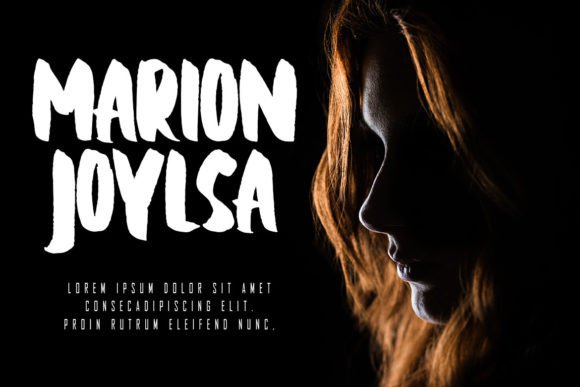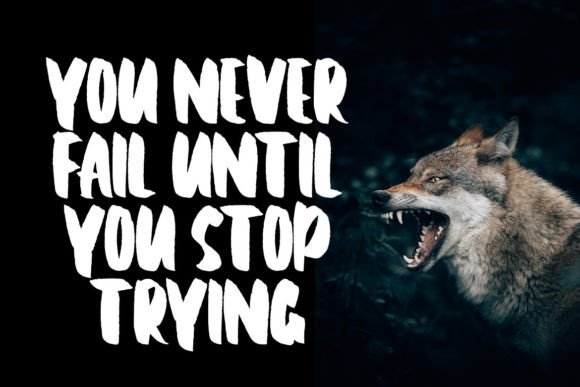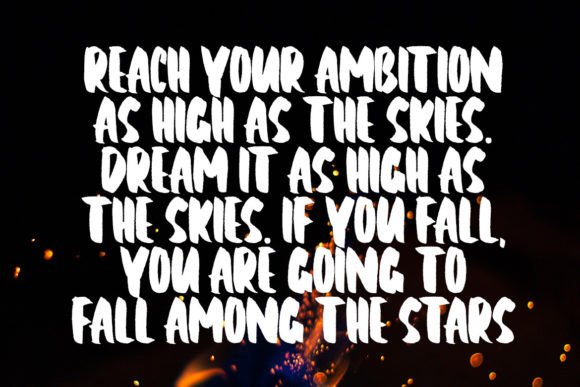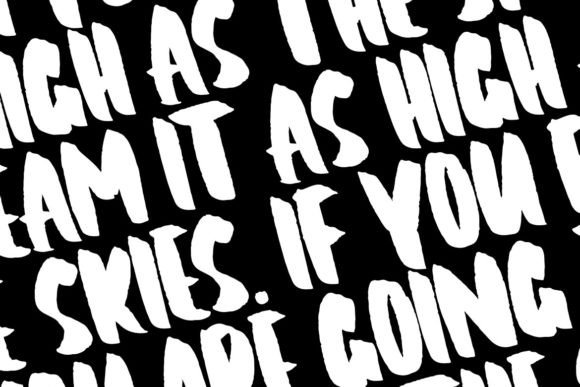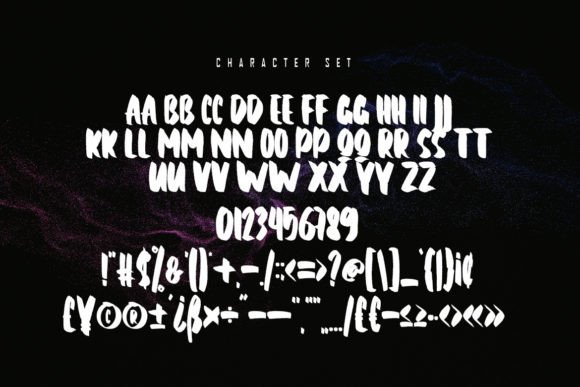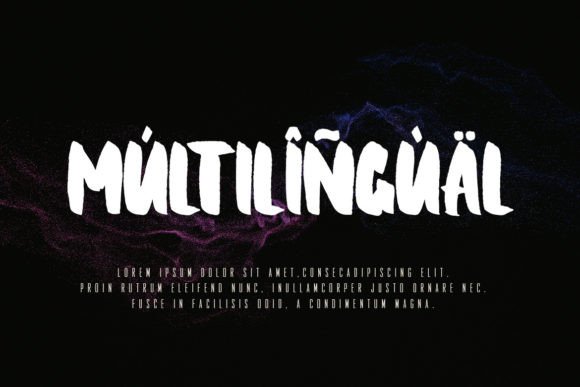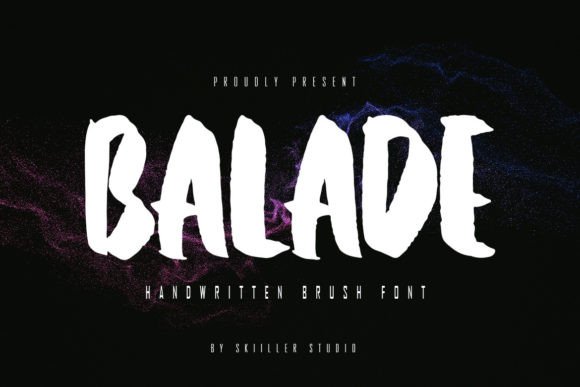
Introducing Balade Font: A Modern Brush Script for Creative Designs
Are you looking for a font that adds a personal touch to your designs? Look no further than Balade Font, a modern script font that captures the essence of natural brushes. Inspired by the fluid motion of a brush pen, Balade is a unique and realistic font that’s perfect for a variety of creative projects.
The Inspiration Behind Balade Font
Balade Font was created with the intention of mimicking the imperfections and uniqueness of hand-written typography. The font’s designer aimed to replicate the quick, fluid motion of writing with a brush pen, resulting in a dry and realistic look that’s both modern and elegant. This distinctive style sets Balade apart from other fonts, making it an excellent choice for designers seeking to add a personal touch to their work.
Characteristics of Balade Font
So, what makes Balade Font so special? Here are some of its key characteristics:
- Realistic and natural look: Balade’s brush script style gives it a genuine, hand-crafted feel that’s perfect for designs that require a personal touch.
- Modern and elegant: Despite its natural inspiration, Balade has a sleek and contemporary look that’s suitable for a wide range of applications.
- Dry and imperfect: The font’s subtle imperfections and dry texture add to its realistic and handmade feel.
Use Cases for Balade Font
Balade Font is an incredibly versatile font that can be used in various creative projects, including:
- Commercial designs: Add a touch of elegance and sophistication to your brand’s marketing materials, such as brochures, flyers, and business cards.
- Magazine and fashion design: Use Balade to create eye-catching headlines, titles, and captions for fashion magazines, blogs, and editorials.
- Product packaging: Stand out on store shelves with Balade’s unique and stylish font, perfect for product labels, packaging, and branding.
- Headlines and posters: Create bold and attention-grabbing headlines for posters, billboards, and digital ads.
- Merchandise and social media: Use Balade to create engaging social media graphics, t-shirts, mugs, and other merchandise.
- Greeting cards and invitations: Add a personal touch to your greeting cards, invitations, and other stationery with Balade’s beautiful brush script.
Why Choose Balade Font?
With so many fonts available, why choose Balade? Here are just a few reasons:
- Unique and distinctive: Balade’s natural, hand-crafted look sets it apart from more traditional fonts.
- High-quality and versatile: The font is suitable for a wide range of applications, from commercial designs to social media graphics.
- Easy to read and use: Despite its unique style, Balade is clear and easy to read, making it perfect for body text and headlines.
Balade Font is a stunning modern script font that’s perfect for designers and crafters looking to add a personal touch to their work. Its unique, natural look and versatility make it an excellent choice for a wide range of creative projects. Whether you’re working on commercial designs, magazine layouts, or social media graphics, Balade is sure to impress.